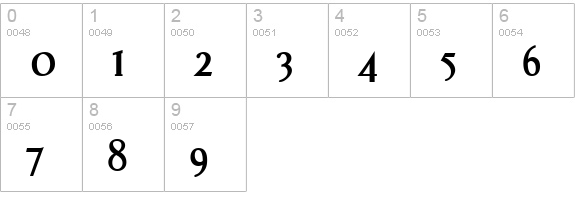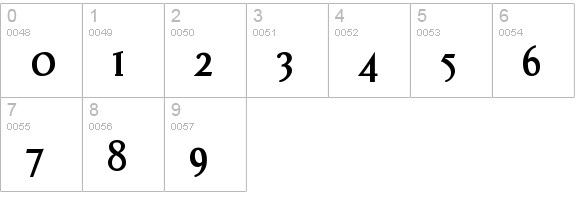
Effloresce Bold is a strong, high-contrast variant in the Effloresce typeface family \xE2\x80\x94 well suited to headlines, attention-grabbing titles, and strong calls-to-action.
Effloresce Bold font is a striking and captivating typeface that will instantly elevate any design project. With its bold and confident letterforms, this font exudes a sense of strength and power, making it perfect for headlines, logos, and other prominent design elements. Effloresce Bold font features a unique and eye-catching design, with sharp edges and intricate details that add a touch of sophistication to any text. Its generous letter spacing ensures excellent readability, even at smaller sizes, making it versatile for both print and digital applications. One of the most enticing aspects of Effloresce Bold font is that it is completely free. Yes, you read that right - this exceptional font is freely available to download at FontsMarket.com. This means that you can access this font without any cost, allowing you to unleash your creativity without any limitations. Whether you are a professional designer or an aspiring enthusiast, Effloresce Bold font is an invaluable addition to your font library. Its versatility, elegance, and the fact that it is free make it a must-have for any design project. So, why wait? Head over to FontsMarket.com and download Effloresce Bold font today, and watch your designs effortlessly effloresce into masterpieces.